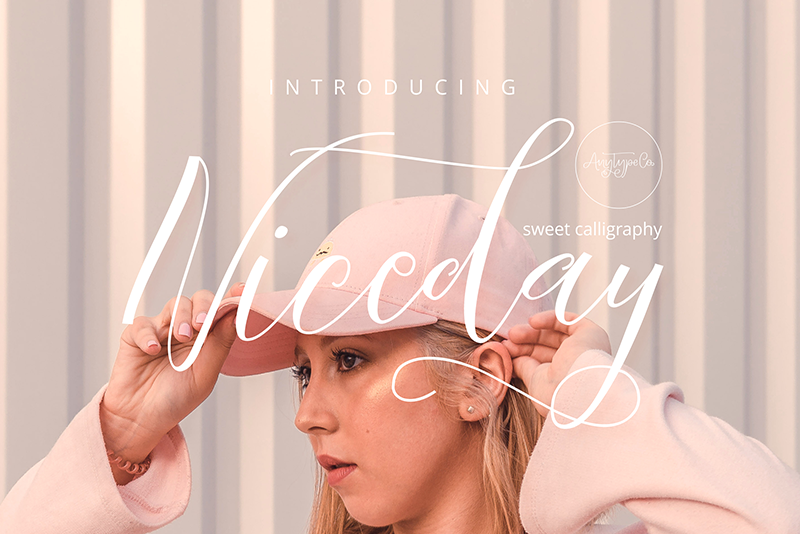
Preview and download Niceday Font. Created by Any in Script Calligraphy styles with Free for personal use license.
Font name: | Niceday |
Author: | Any |
Niceday is a feminine font with a modern script style, this font will be perfect for many different projects. Free for personal use ONLY. For commercial use, please purchase a license: https://fontbundles.net/anytypeco/100917-niceday-script-font/rel=O4Svxa For other fonts: https://fontbundles.net/anytypeco/rel=O4Svxa |